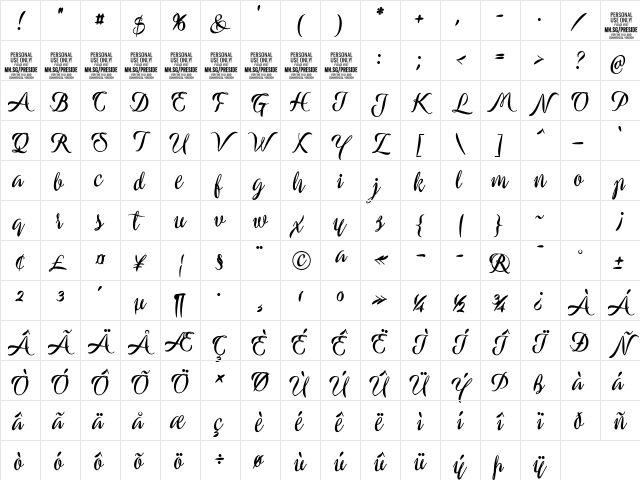
Complete Preside Bold PERSONAL USE ONLY Regular glyph index. Displaying only characters natively supported by Preside Bold PERSONAL USE ONLY Regular font.
Preside Bold PERSONAL USE ONLY is a composed and adaptable typeface that performs quietly and consistently across a wide range of design contexts. Its bold stroke weight gives it real presence on the page.